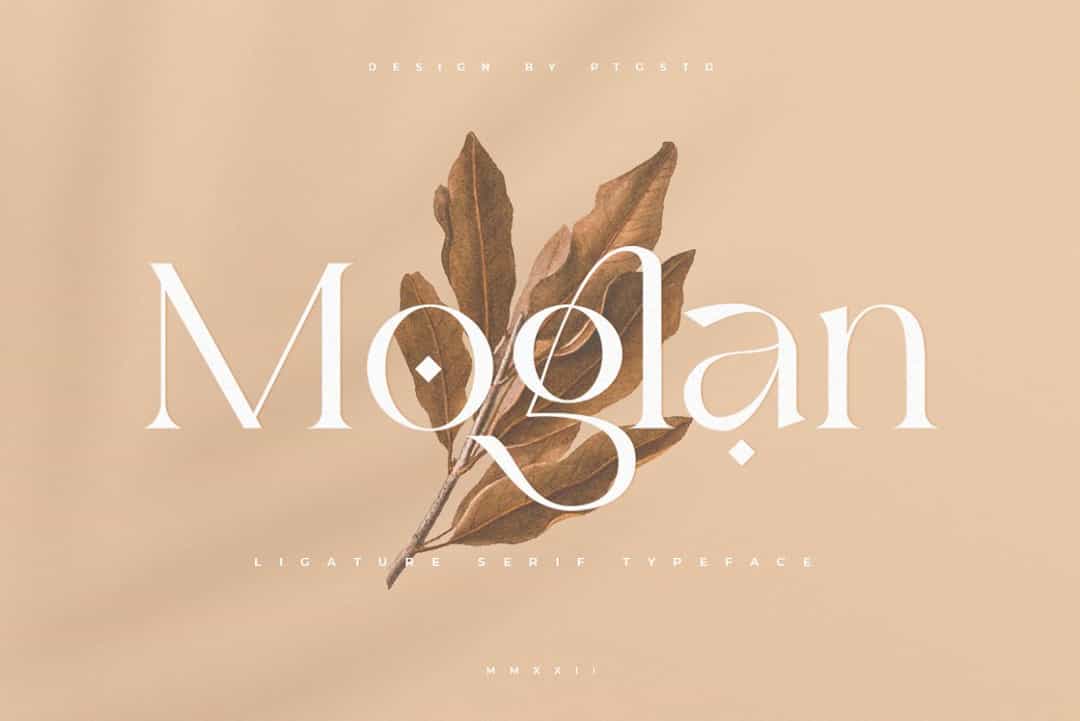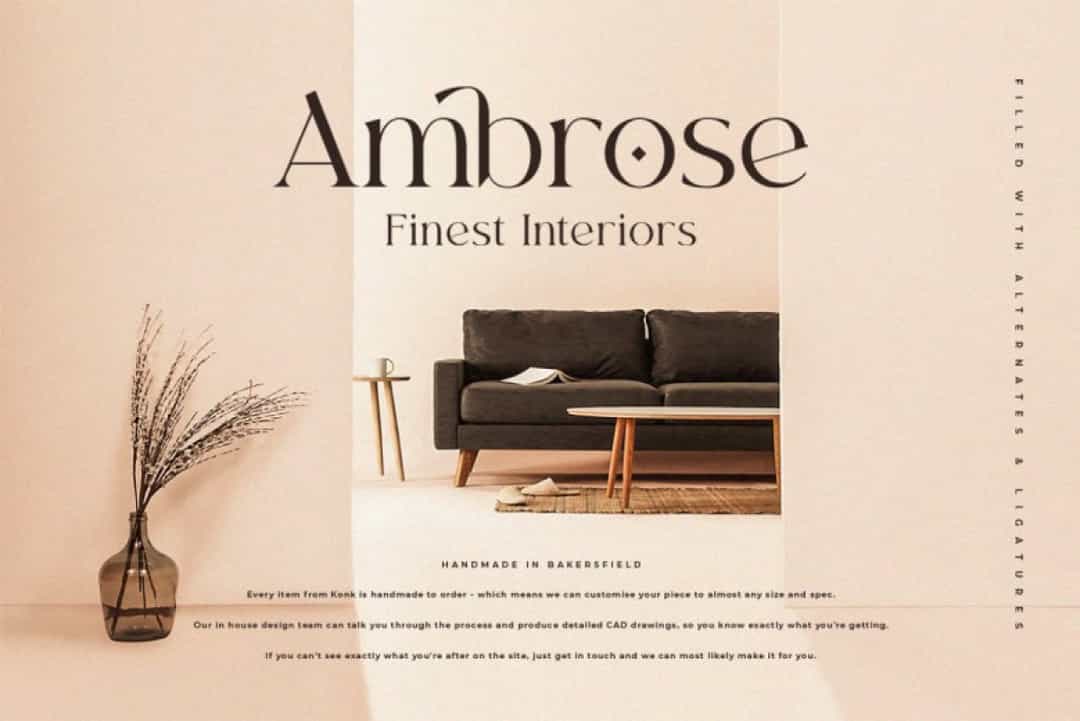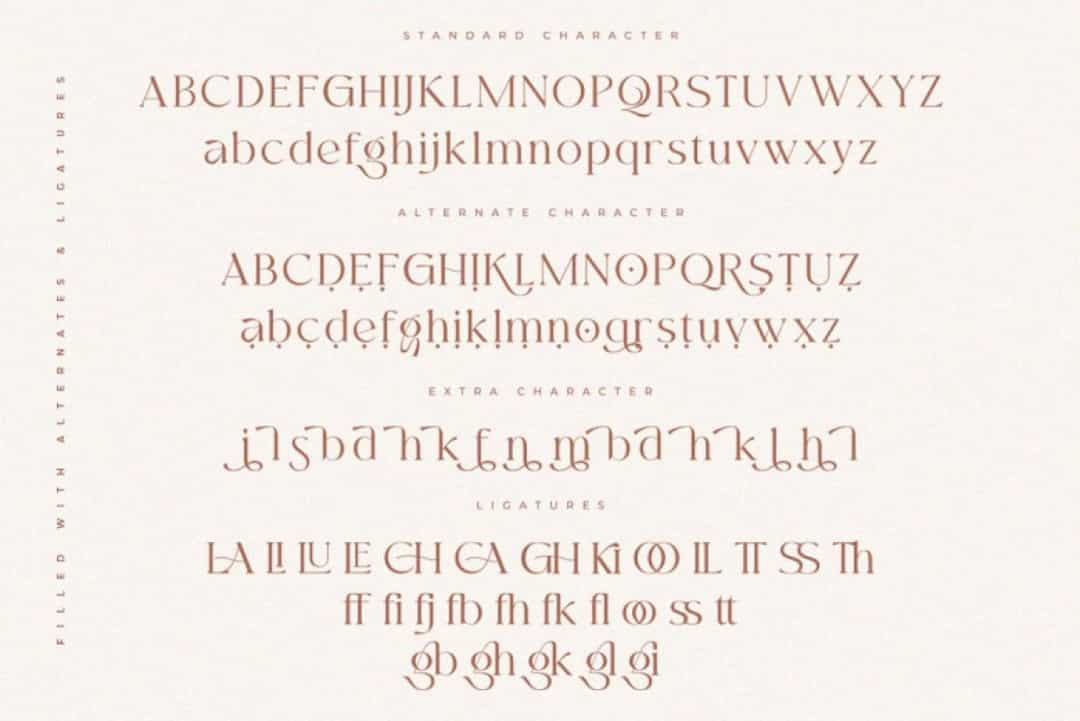
Moglan can be described as an elegant and slim serif font that exudes style. Perfect for packaging products, branding projects, magazine covers, wedding invitations or social media posts to express words on any background, it features PUA encoded characters enabling quick access.